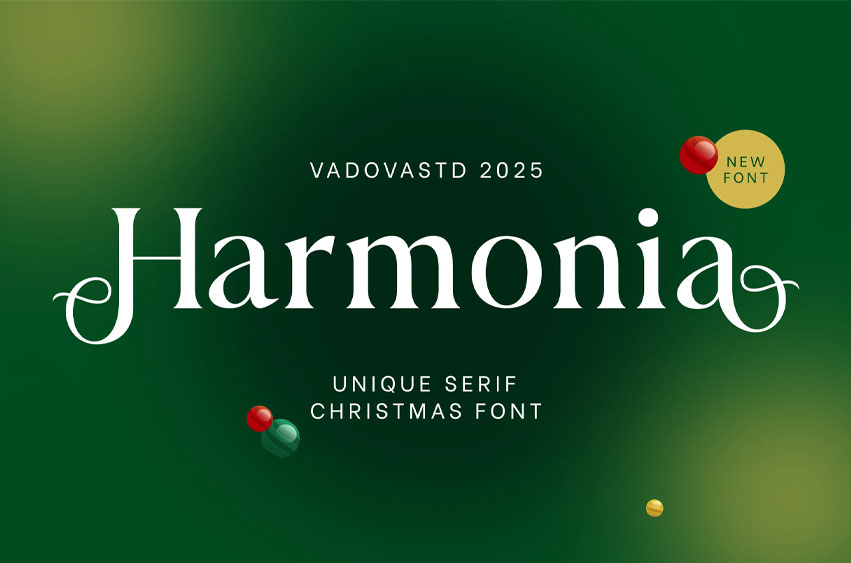
Harmonia Font is a graceful serif typeface crafted to evoke the festive elegance of the holiday season. Its refined letterforms combine classic sophistication with subtle decorative swashes, creating a perfect balance between timeless charm and modern flair. Ideal for Christmas branding, packaging, greeting cards, and editorial design, Harmonia adds a luxurious festive touch to every project. Complete with uppercase, lowercase, numerals, punctuation, and alternate stylistic details for versatile creative use.
Relevance and Use Cases is perfect for elegant Christmas cards, holiday packaging, festive invitations, brand campaigns, poster titles, and winter-themed editorials. Harmonia brings a luxurious, balanced, and festive character to your seasonal typography with timeless charm and decorative finesse.